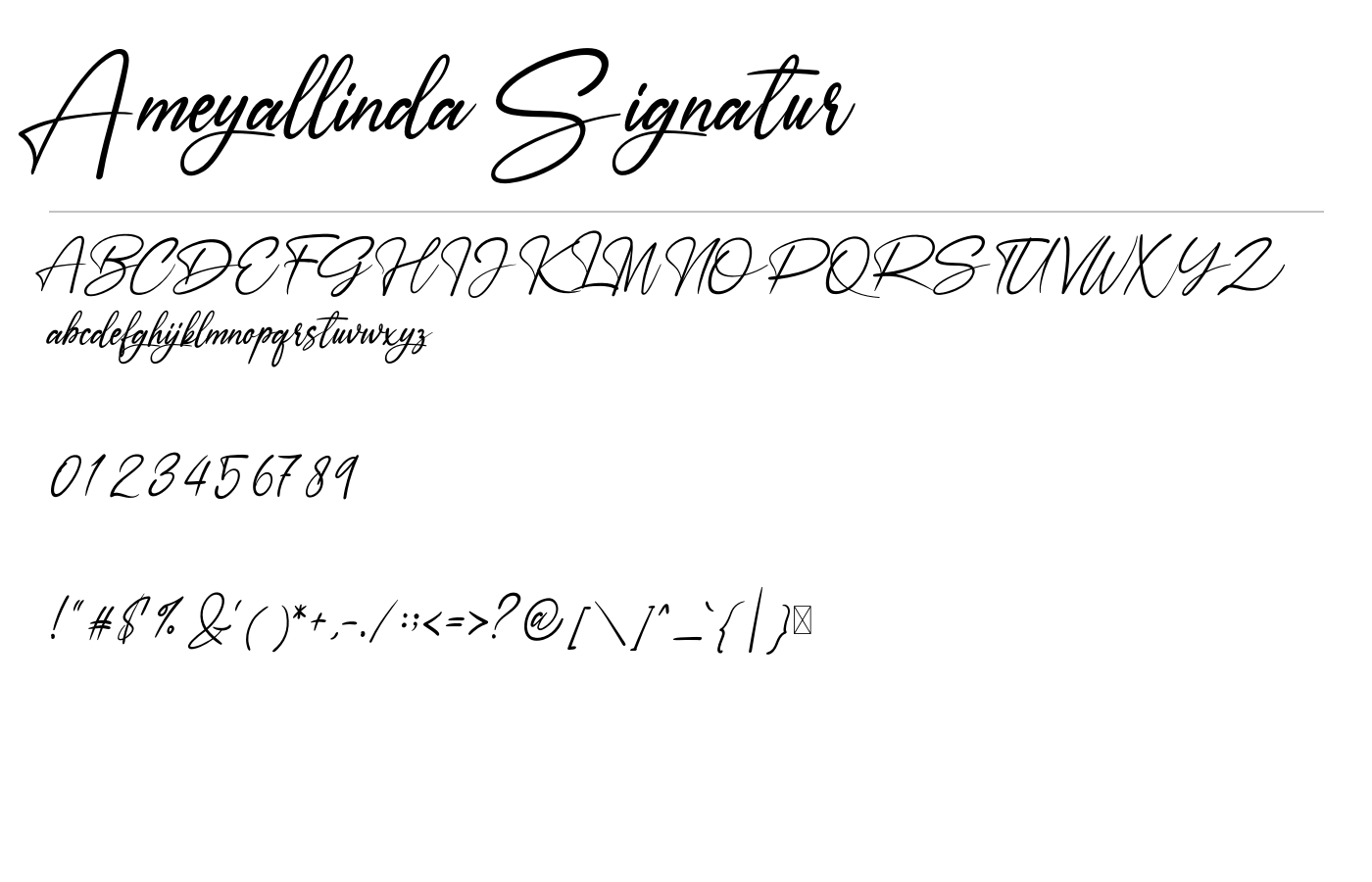
Ameyallinda Signatur is a delicate and elegant handwritten script font that features smooth, flowing strokes with a natural, casual signature feel. Its slender letterforms and consistent stroke weight make it perfect for stylish branding, invitations, and personal signatures where a sophisticated yet approachable look is desired. The font's graceful curves and legible style bring a warm, personal touch to any design.
Ameyallinda Signatur Font
About Ameyallinda Signatur Font